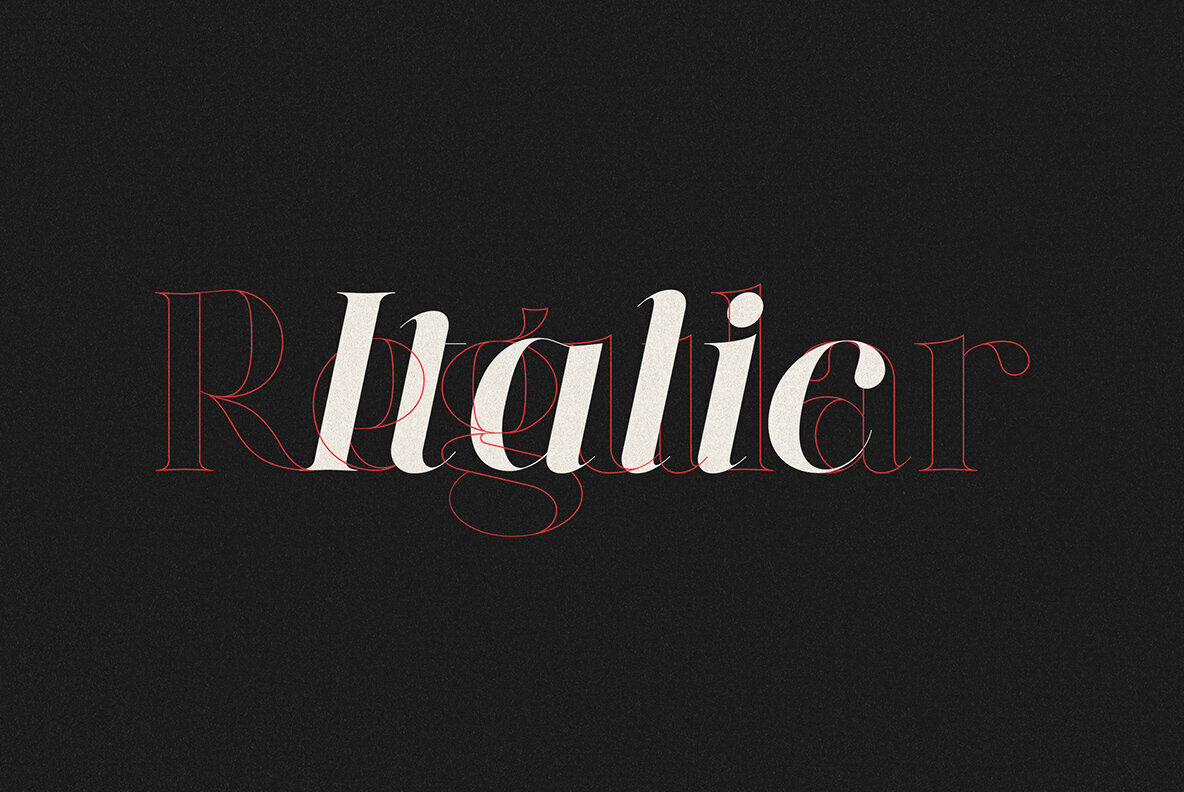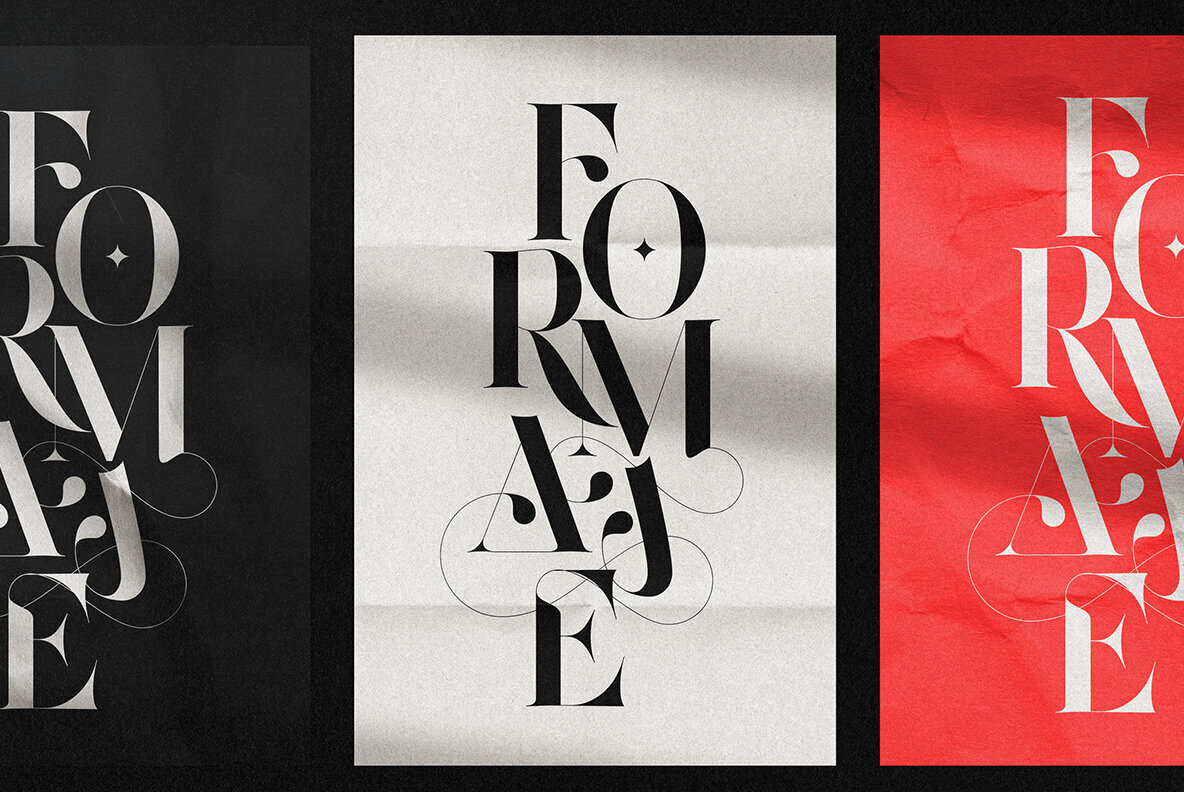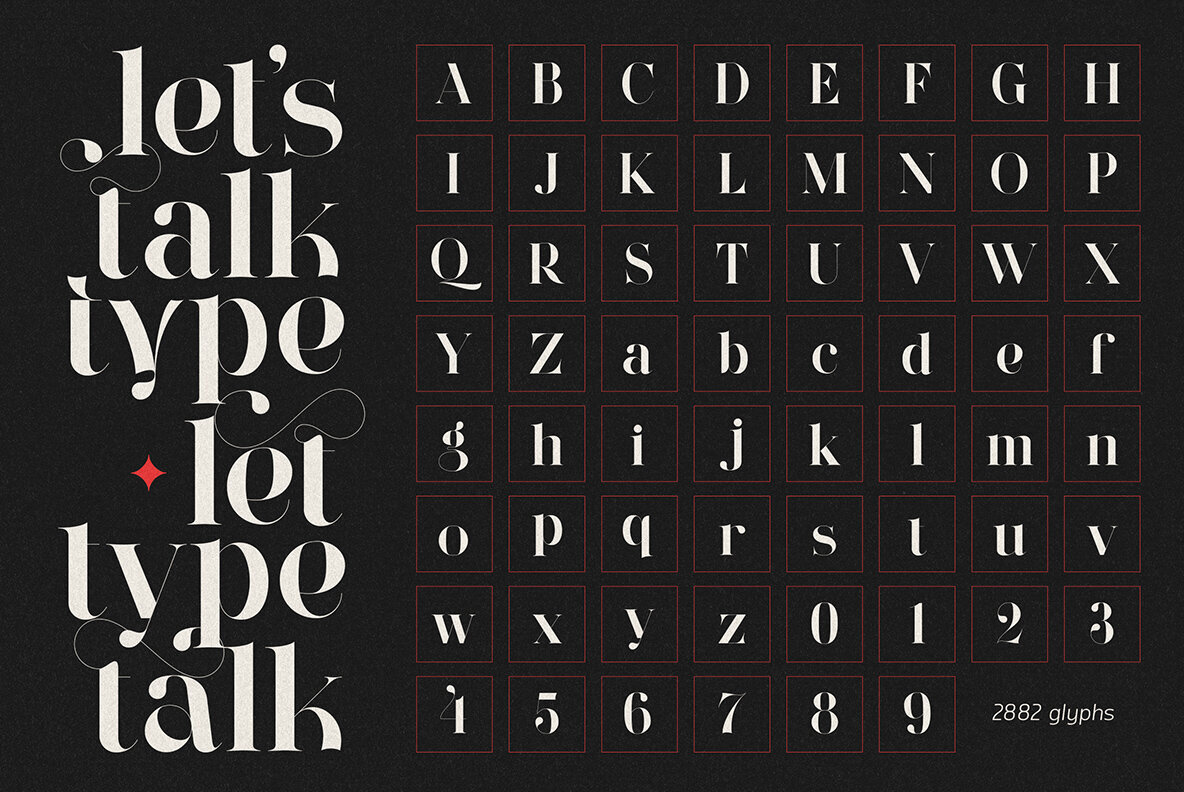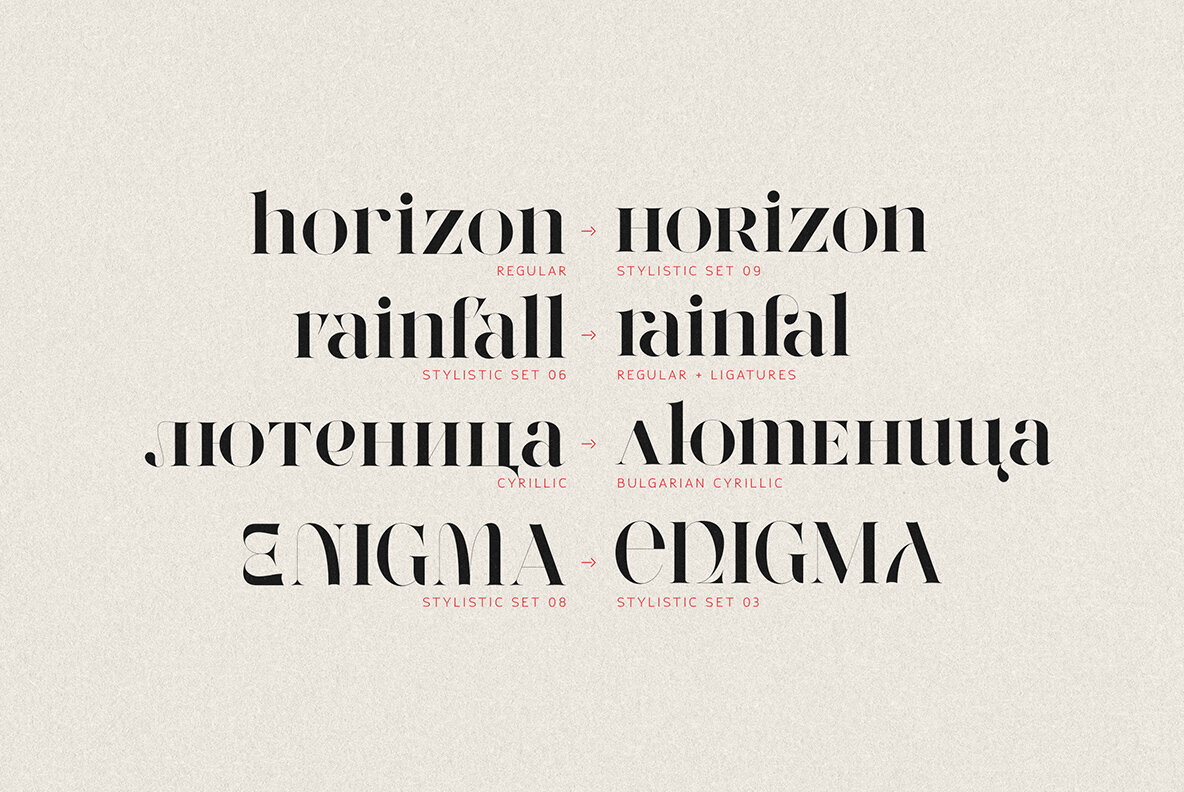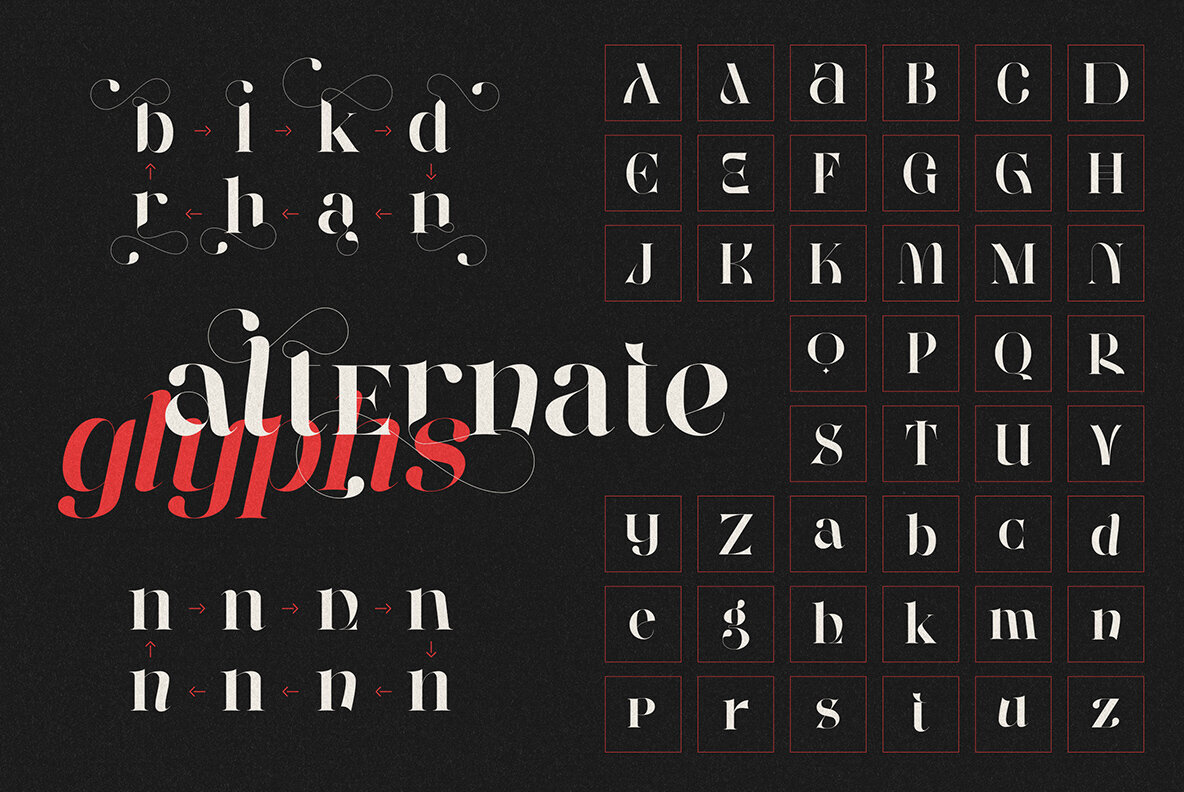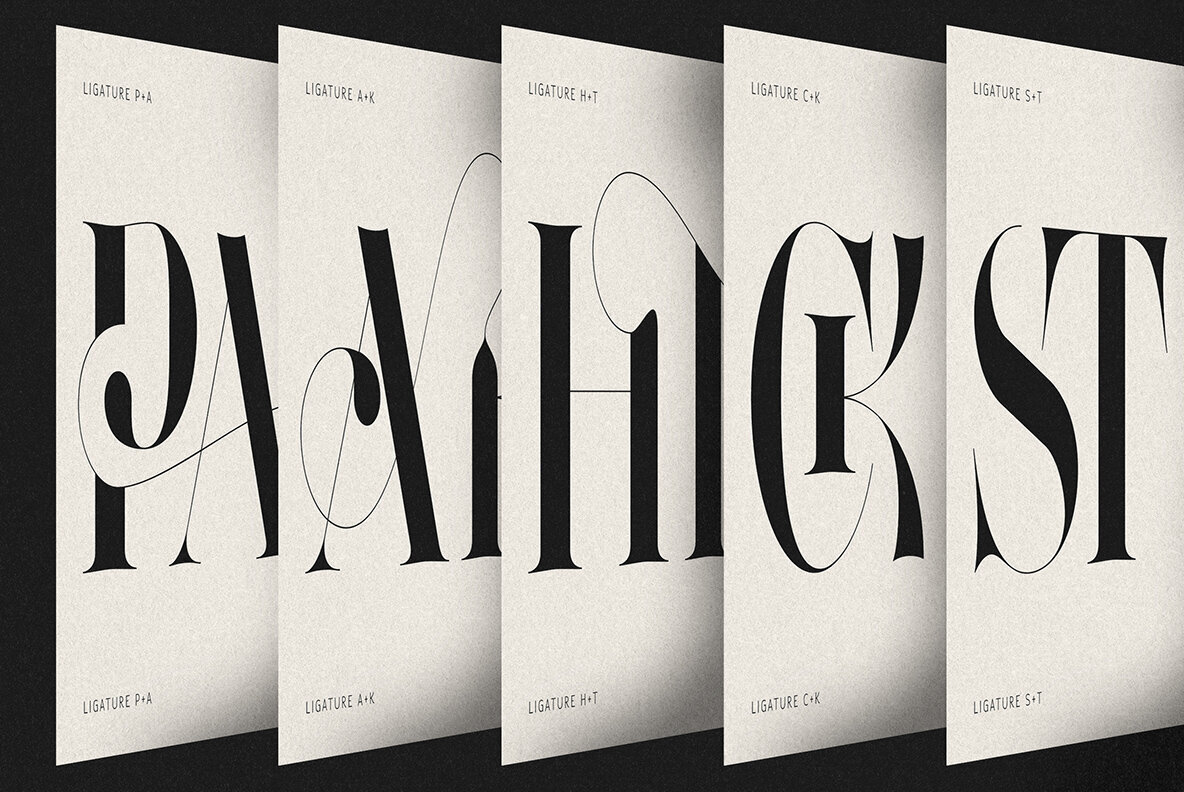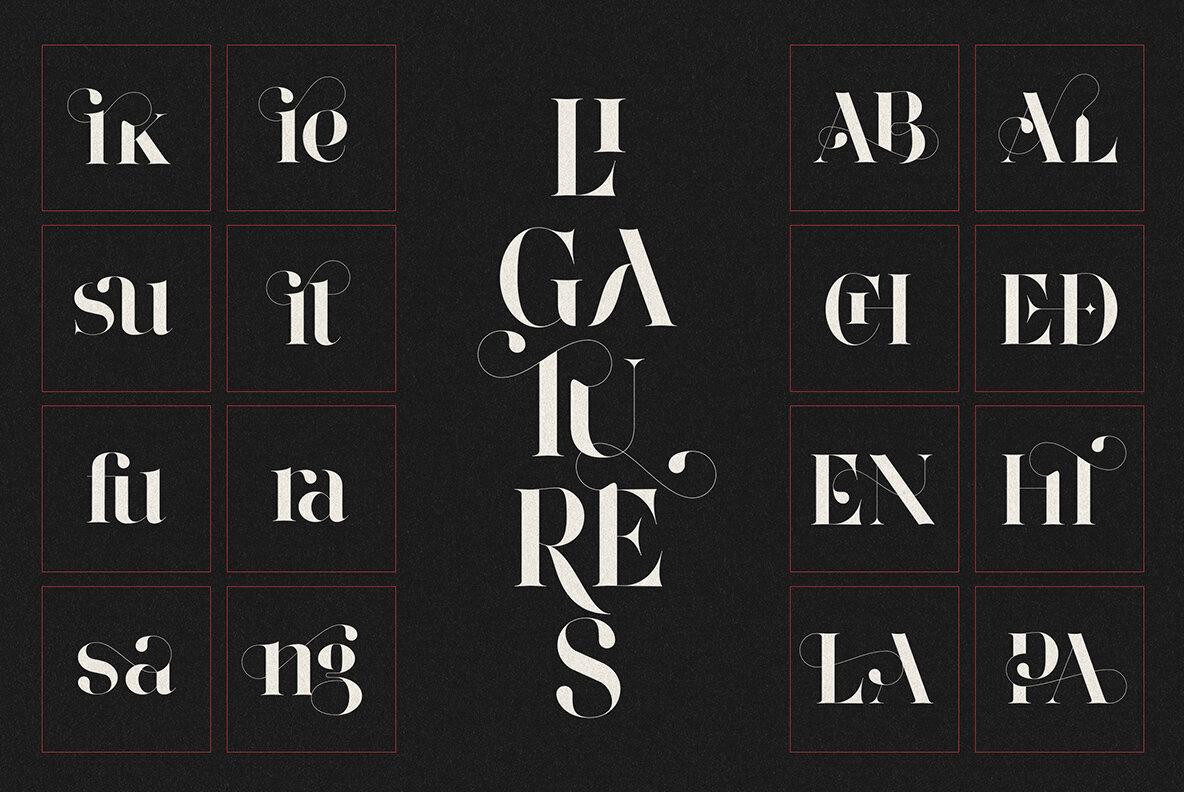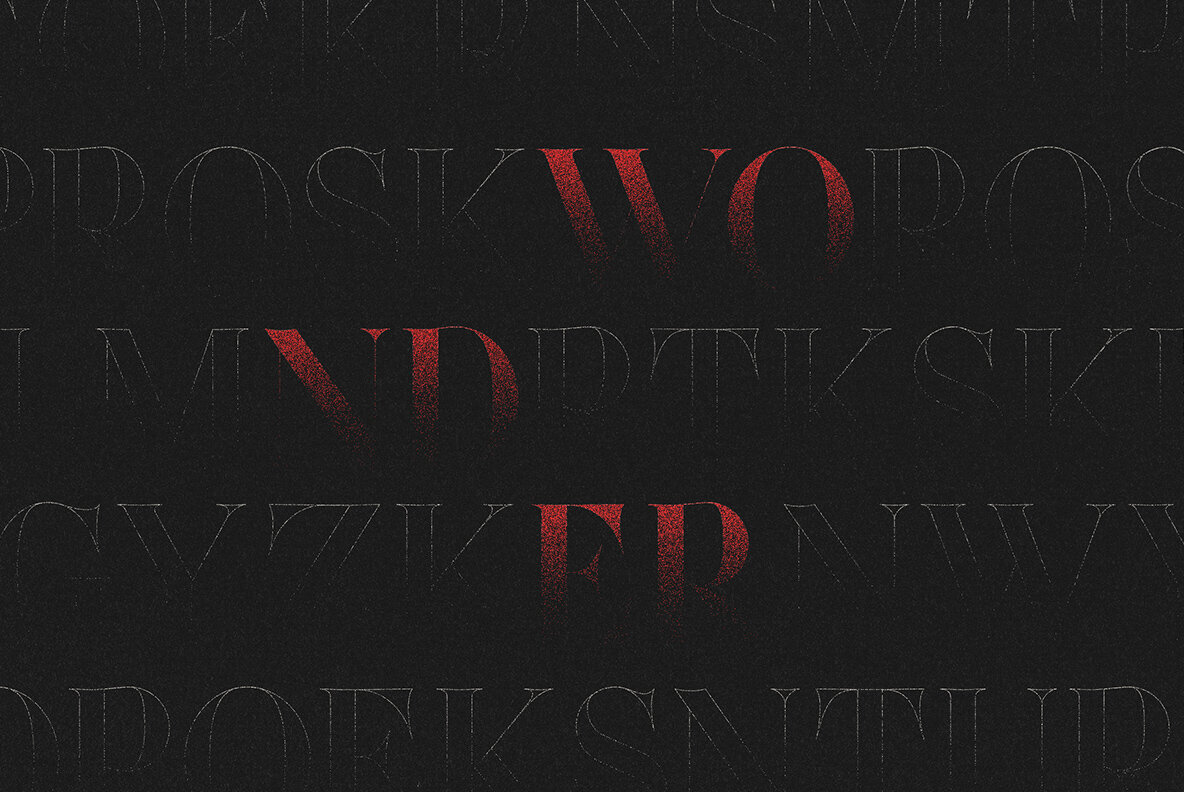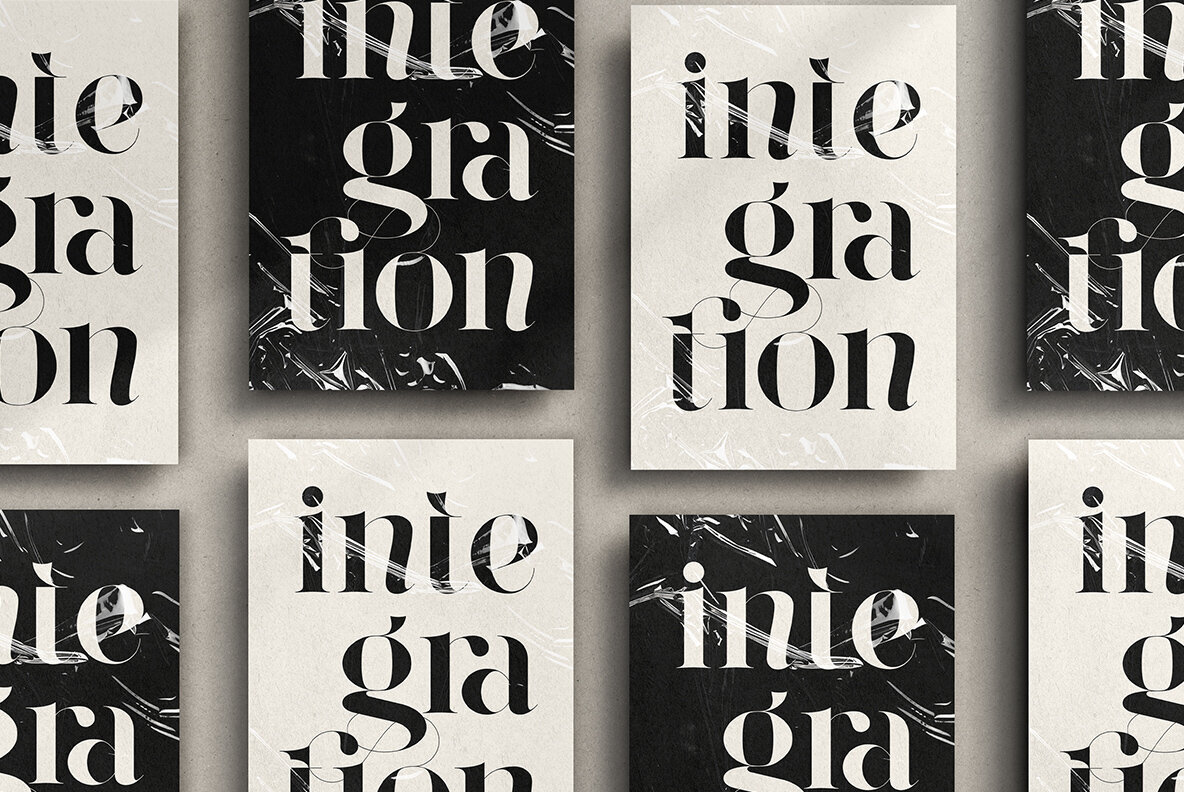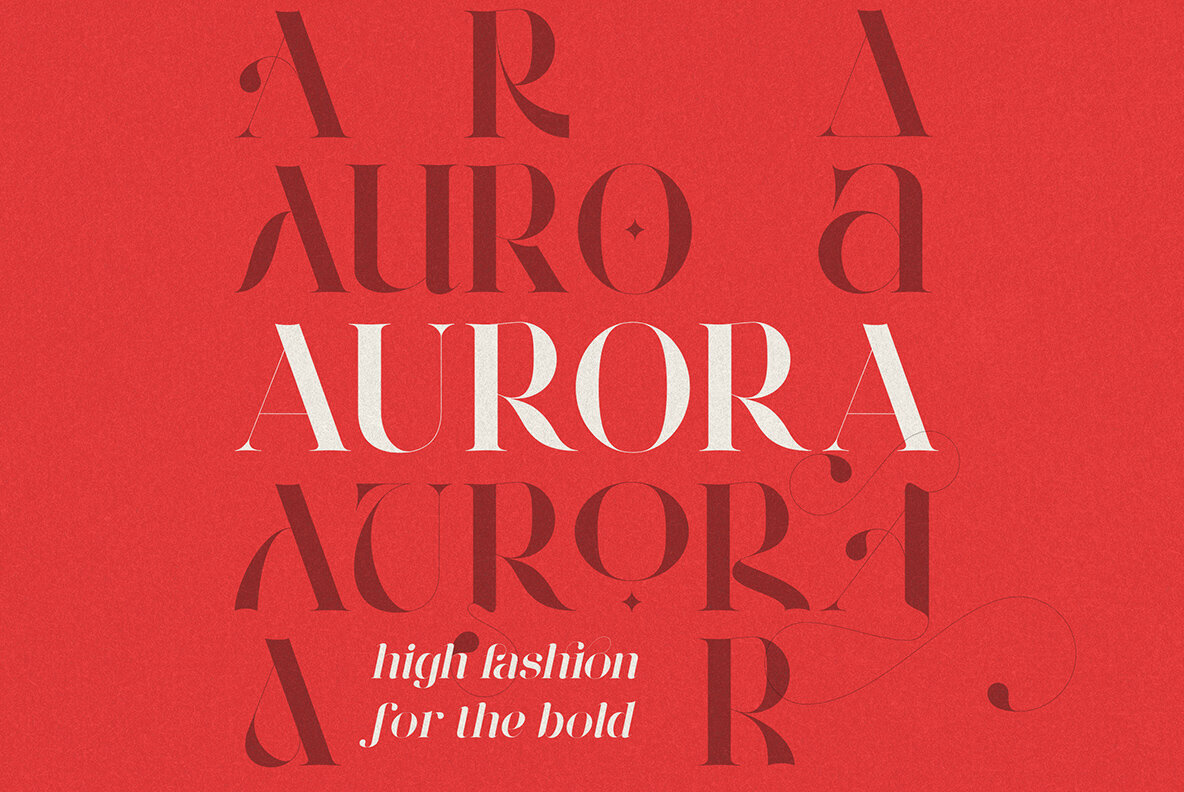
Wonder Type Font
Wonder Type Regular
Wonder Type Regular Italic
Wonder Type is a sophisticated serif font crafted for branding, editorial, and luxury design projects. Featuring an impressive 2,882 glyphs and support for 95 languages, including both Cyrillic and Bulgarian Cyrillic, this typeface enables designers to achieve elegance and diversity in their work.
Features and Glyphs:
- Extensive Character Set: Includes uppercase, lowercase, numerals, punctuation, and multilingual support.
- Cyrillic & Bulgarian Cyrillic Support: Ensures typographic integrity across various languages.
- Alternate Glyphs & Ligatures: Offers stylistic sets and discretionary ligatures for a customized design.
- Luxury Appeal: Ideal for editorial layouts, high-end branding, invitations, packaging, and advertising.
Wonder Type excels in delivering sophistication and versatility, making it an exceptional choice for luxury magazines, high-end branding, and elegant designs.